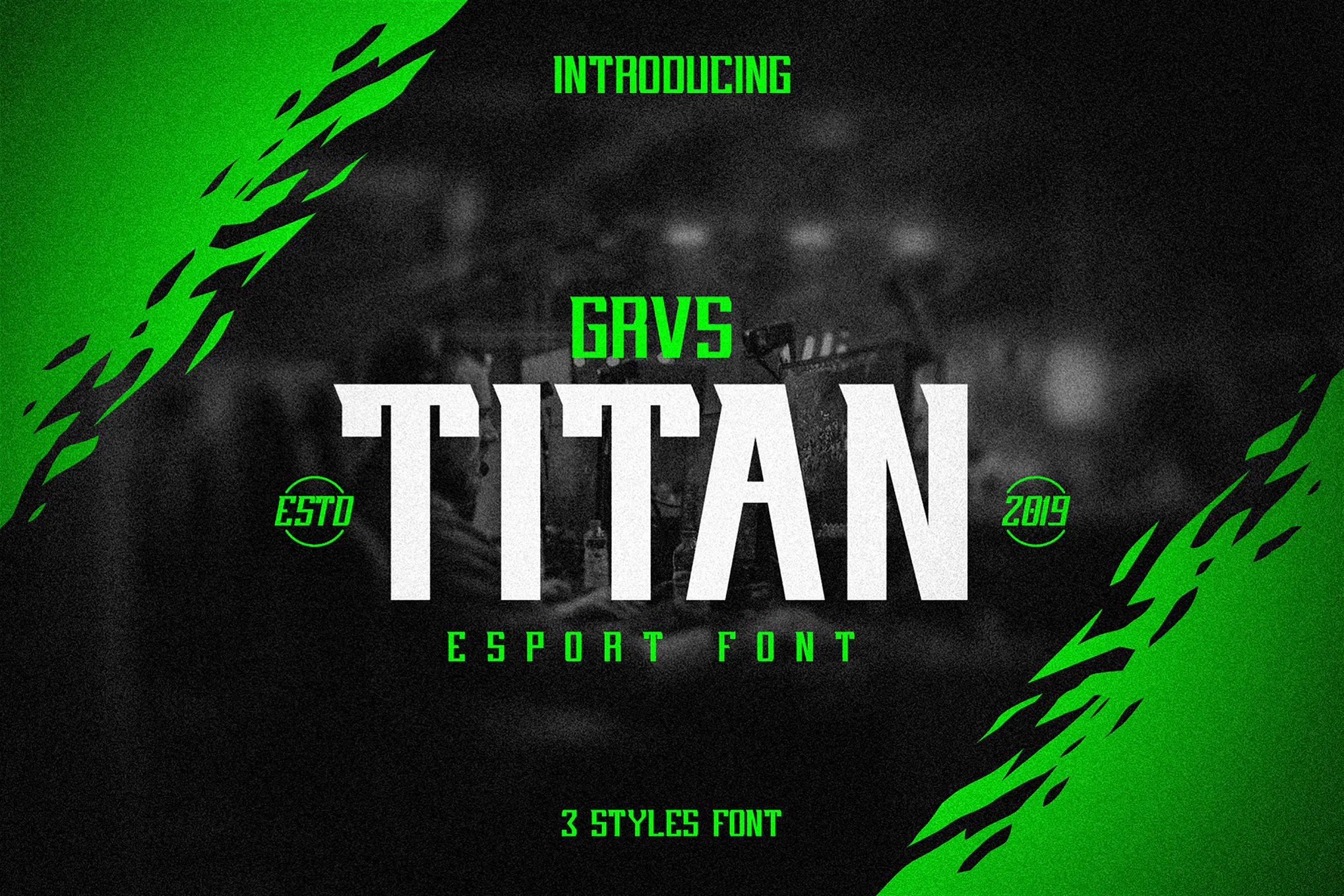
دانلود فونت انگلیسی Titan – فونت گرافیگی و eSports تایتان
GRVS TTitan font, is our new item that suitable for your team logo, or community logo.
Great for Logo, Sticker, Jersey, Invitation Card, Brochure, etc.